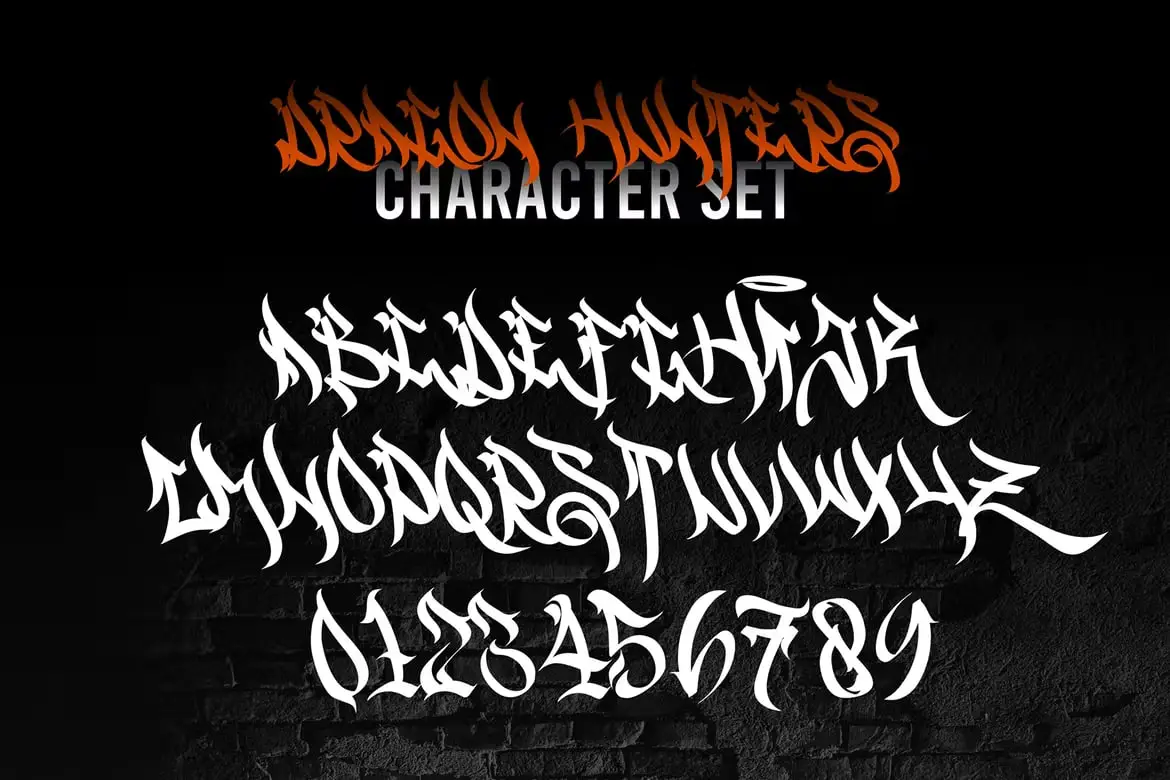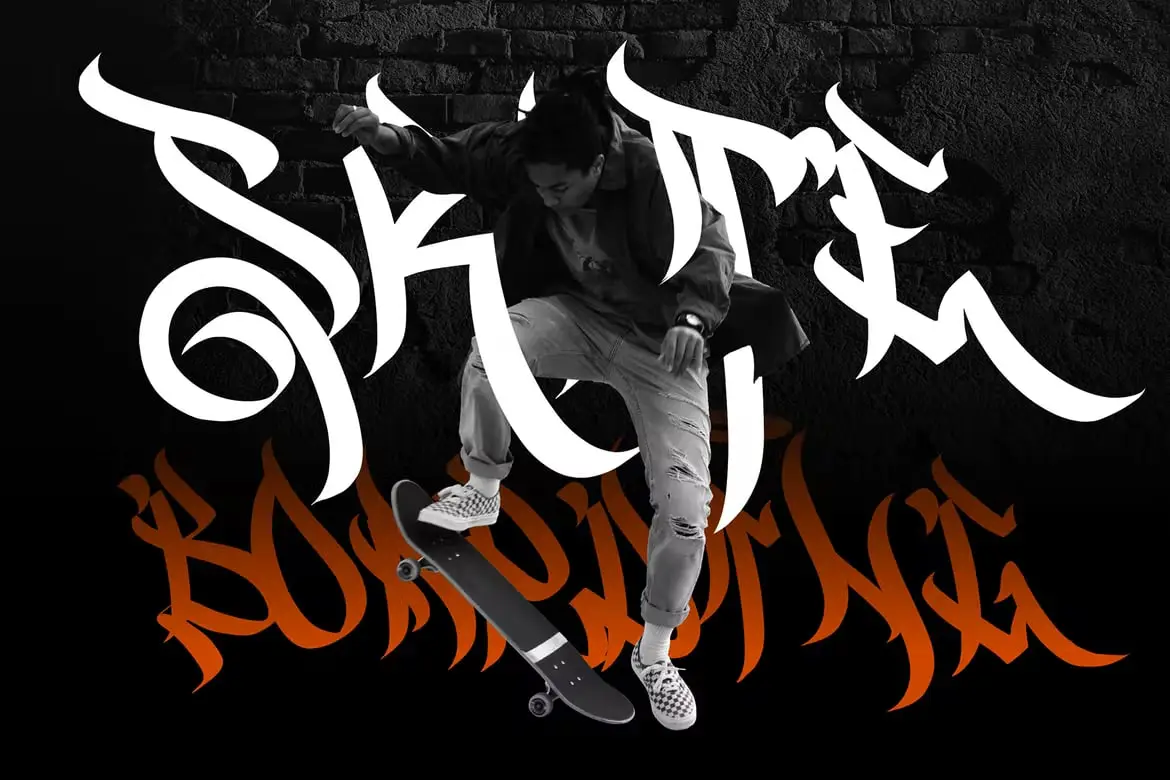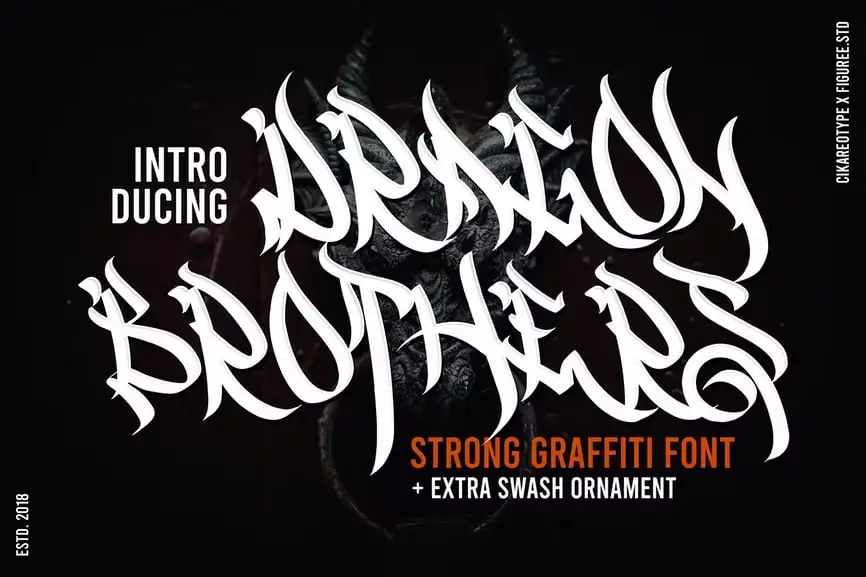
Dragon Brothers-Strong Graffiti Font
Introducing the Dragon Brothers Strong Graffiti Font, a bold and dynamic typeface designed to capture the essence of urban art. This font features a unique graffiti style that adds a vibrant touch to any project.
• Distinctive graffiti-inspired design
• Weight: Strong
• Ideal for branding, posters, and promotional materials
• Perfect for web design and user interfaces
• Great for merchandise and apparel designs